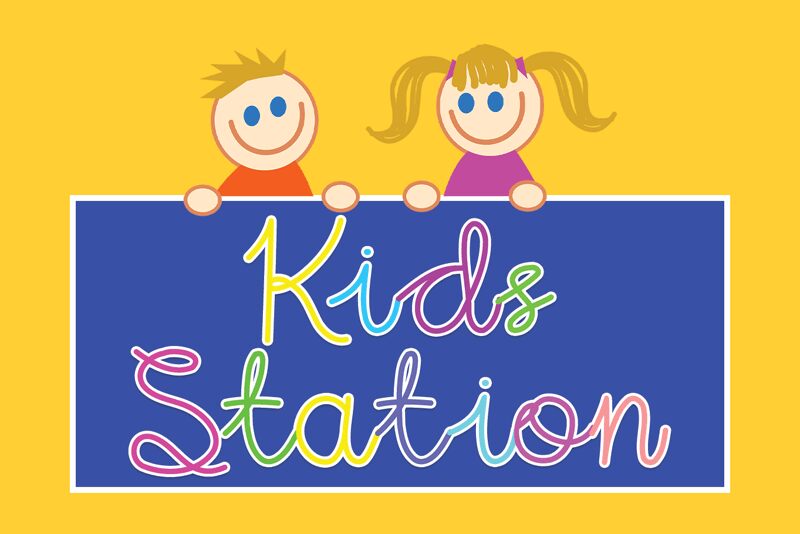
Kids Station font designed by Luluk Surotul is a free font for personal use that combines uncomplicated letter shapes with a playful style. It can easily be seen as a playful representation of each letter taken from a handwritten source. The typeface curves are soft, friendly, and beautifully crafted with care, creating visuals that are sure to stand out and attract the reader’s attention.
The set’s nostalgic child-like appearance is perfect for a sort of book covers, ads, shop signs, comic projects, and other typography-based projects. Other ideas include postcards, logos, branding, packaging, company slogans, posters, etc.
Kids Station is a relaxed and simple handwritten font that is the perfect choice for creating eye-catching logos, branding, and quotes. Each letter features a unique and beautiful touch, bringing your design to life.